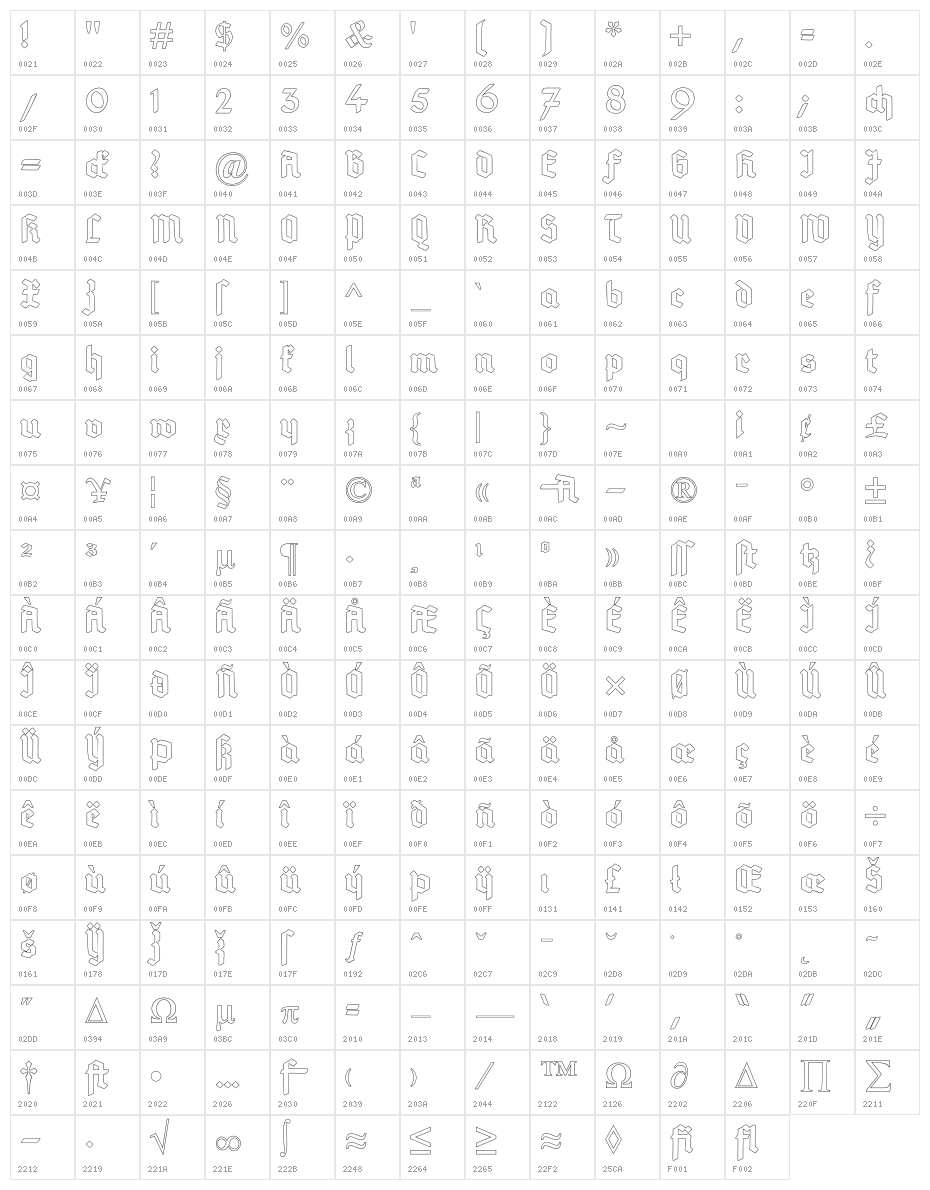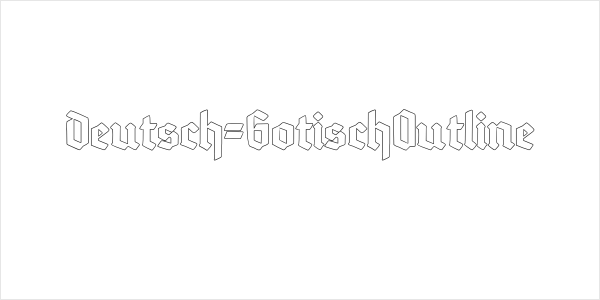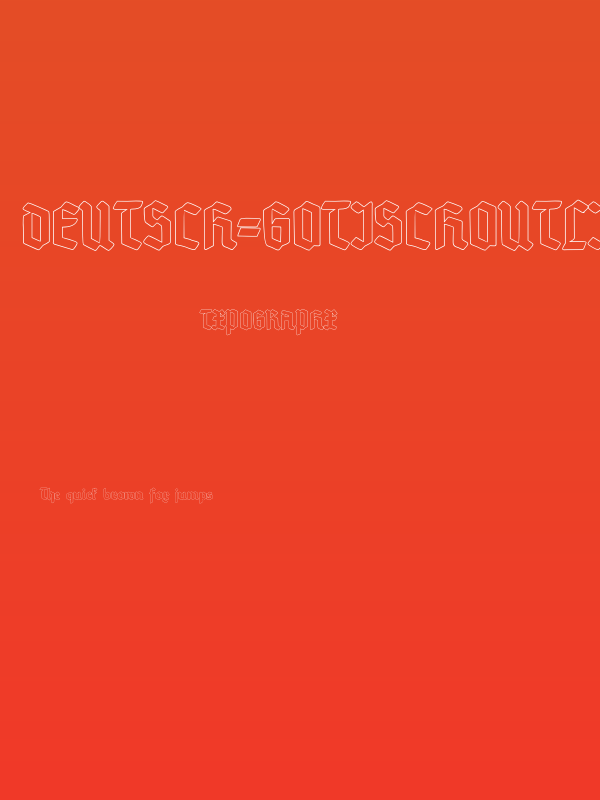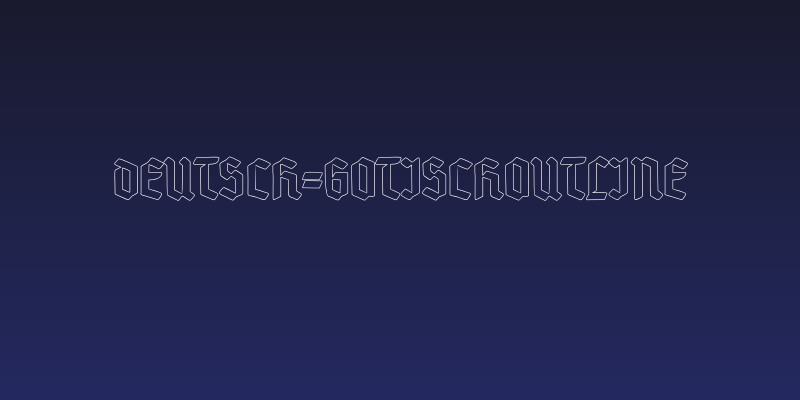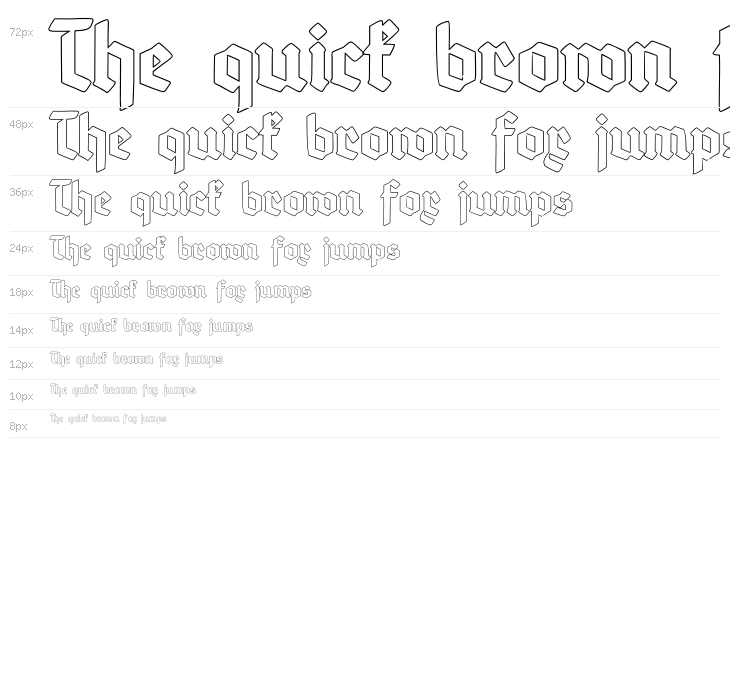
Deutsch-GotischOutline Font
Deutsch-GotischOutline Description
This font features a distinct outline style with a Gothic influence, characterized by sharp angles and a structured, geometric form. The uppercase and lowercase letters maintain a consistent height, with the uppercase being slightly more pronounced. The numerals follow the same stylistic cues, ensuring uniformity across all characters. The special characters are designed to complement the overall aesthetic, adding a touch of medieval flair. The font's outline nature gives it a unique, airy feel, making it stand out in any design. Its intricate design is both bold and elegant, suitable for projects that require a historical or dramatic touch.
| Proposed Projects | Ideal for historical-themed designs, book covers, posters, and branding that requires a dramatic or medieval touch. |